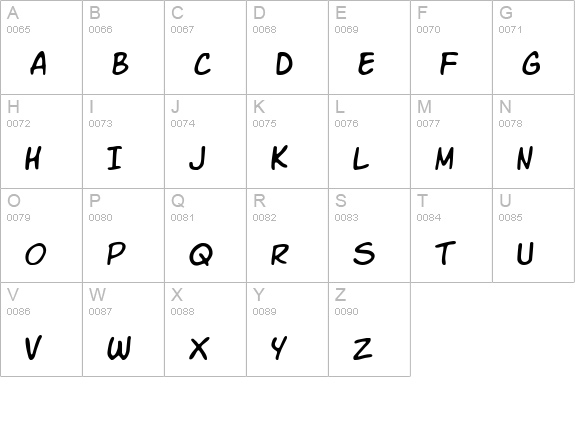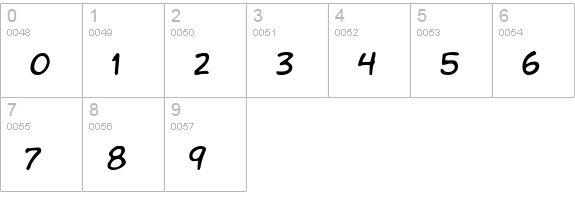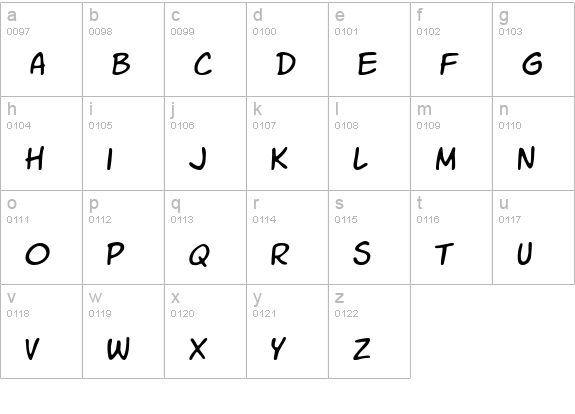
VTC Letterer Pro Regular Font Details
VTC Letterer Pro Regular is the standard, neutral variant in the VTC typeface family \xE2\x80\x94 well suited to general body text, paragraphs, and standard typographic work.
VTC Letterer Pro Regular font is a stunning typographic masterpiece that brings a touch of elegance and sophistication to any design project. With its clean lines and balanced letterforms, this font is perfect for creating eye-catching headlines, logos, and branding materials. The VTC Letterer Pro Regular font boasts a timeless appeal that seamlessly blends traditional lettering with a contemporary twist. The meticulously crafted characters exude a sense of authority and professionalism, making it an ideal choice for corporate communications, editorial layouts, and elegant invitations. This font's versatility knows no bounds, as it effortlessly adapts to various design styles and themes. Whether you're working on a modern website, a vintage-inspired poster, or a classic book cover, VTC Letterer Pro Regular font will elevate your design to new heights. One of the best things about VTC Letterer Pro Regular font is that it is freely available to download at FontsMarket.com. This means that you can enjoy the beauty and versatility of this font without any cost or restrictions. By downloading it from FontsMarket.com, you can unlock endless creative possibilities and enhance your design projects with this exceptional typeface. So why wait? Experience the power of VTC Letterer Pro Regular font and let its timeless charm captivate your audience. Download it today for free at FontsMarket.com and elevate your designs to a whole new level of excellence.